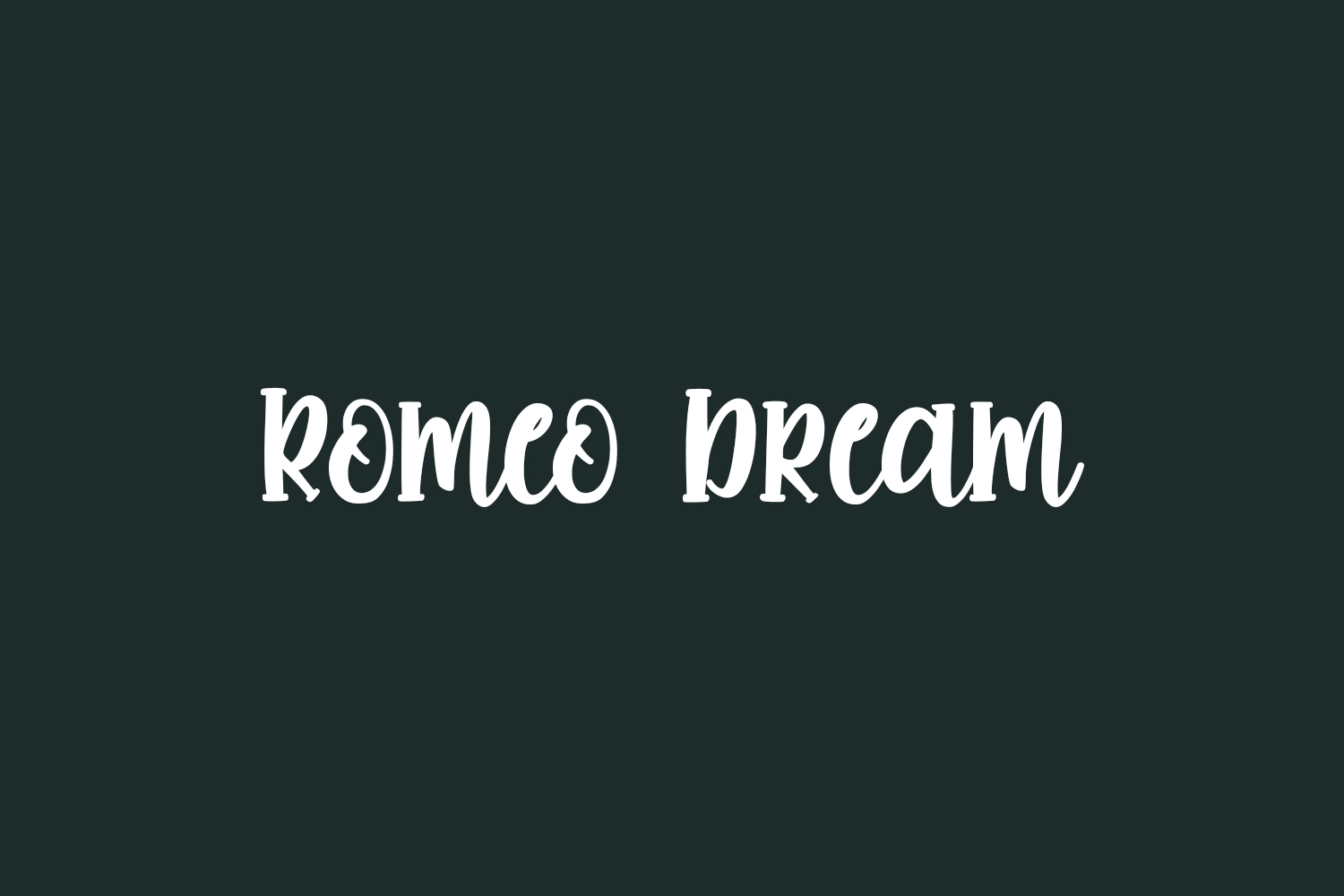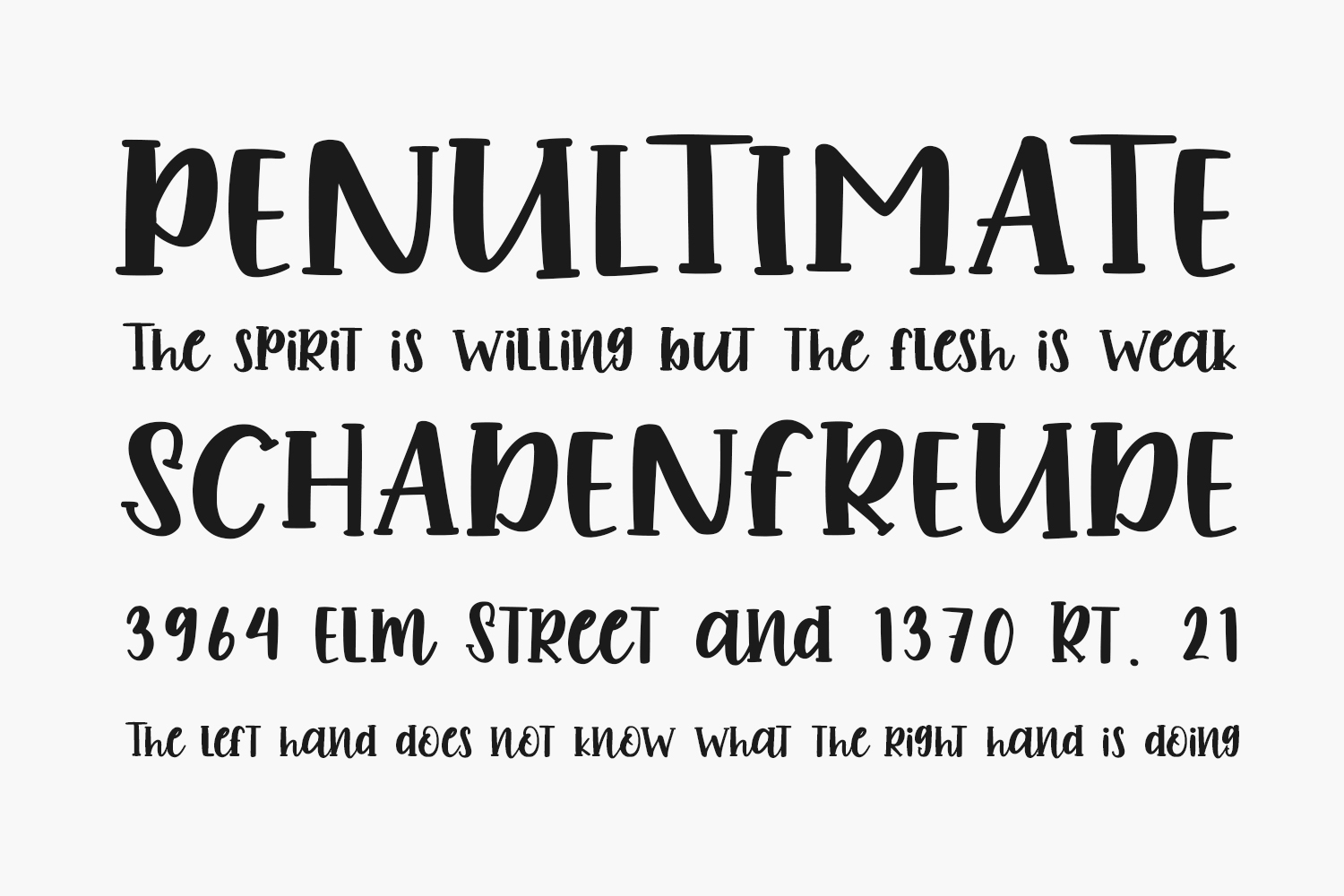
Romeo Dream Free Font is a playful and whimsical display font. Whether you are using it for cartoon-related designs, children’s games, quotes, titles, brand names, book covers, posters, or just any creation that requires a touch of beauty, this font is a great choice. Romeo Dream Free Font was designed by Bearytype and is free for personal use only. Please purchase the full version for commercial use.